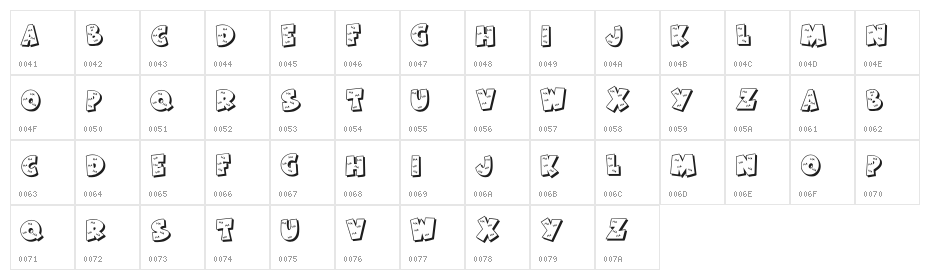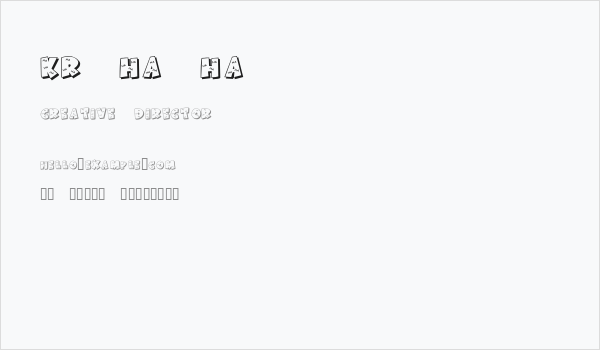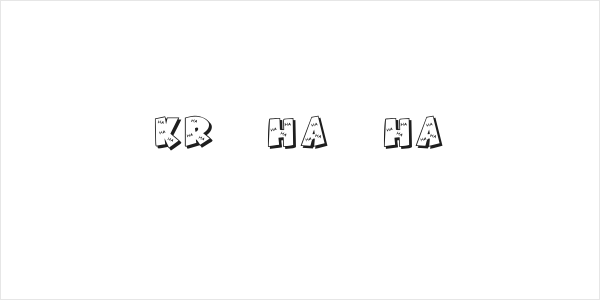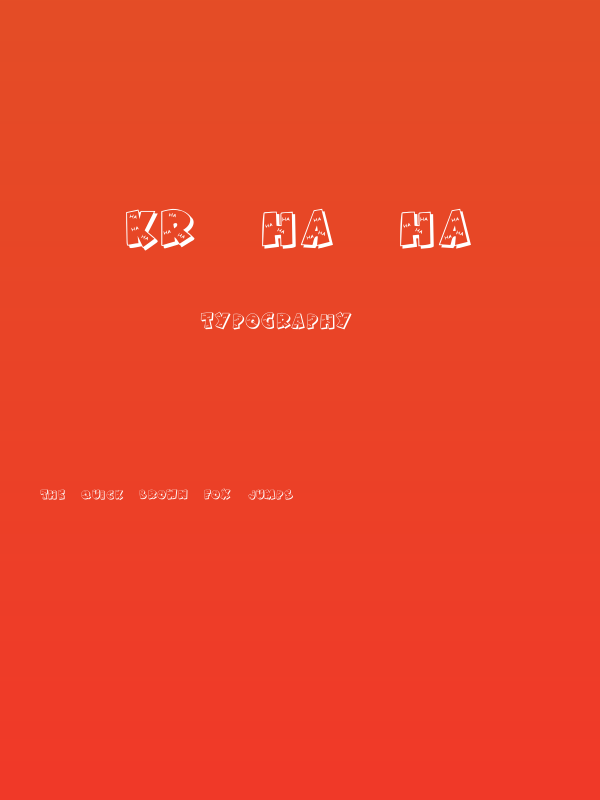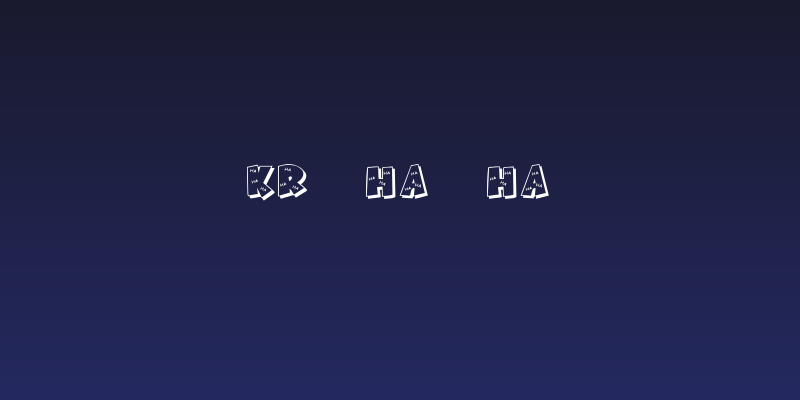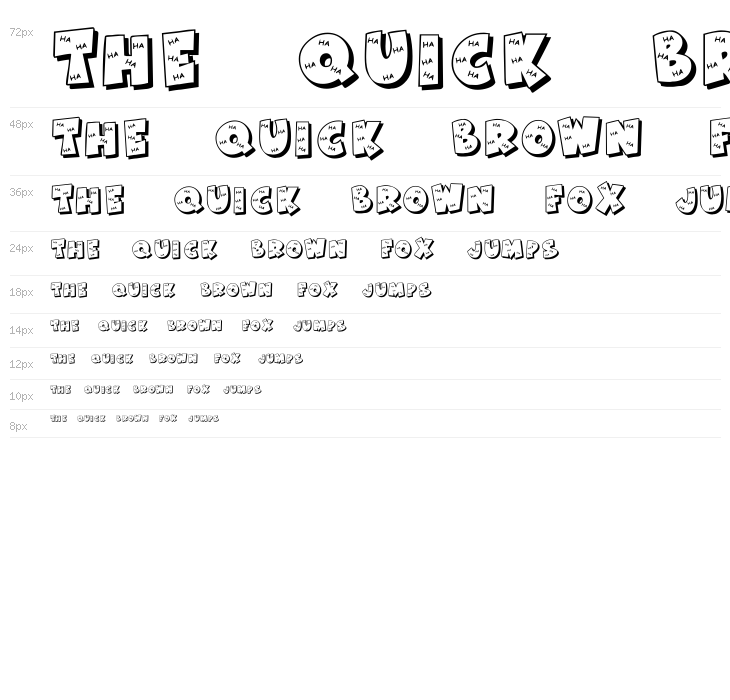
KR Ha Ha Font
KR Ha Ha Description
This playful and whimsical font features bold, chunky letters with a comic-style aesthetic. Each character is filled with the repeated text 'HA', adding a humorous and lighthearted touch. The font has a three-dimensional appearance with a shadow effect, enhancing its playful nature. The uppercase and lowercase letters maintain a consistent style, making it suitable for projects that require a fun and engaging look. The numbers and special characters are designed to match the overall theme, ensuring uniformity across all text elements.
| Overall Style | Playful, Comic |
| Proposed Projects | Ideal for comic books, children's books, playful advertisements, and party invitations. |